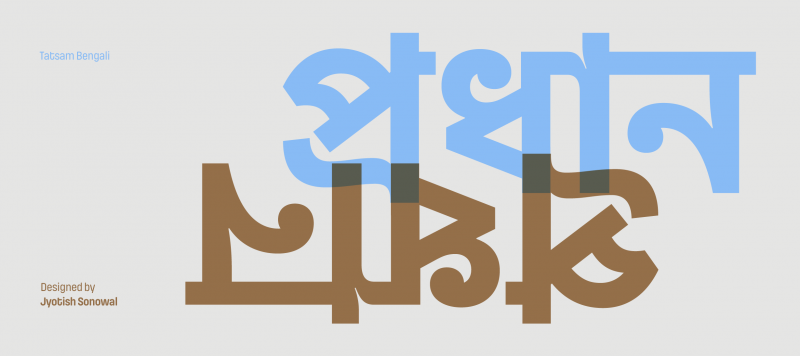
In recent decades, many new typefaces were based on pre-existing letters drafted by engineers. Their consistent stroke thicknesses referenced an industrial past. Tatsam is a Bengali family in this tradition. Uncommon for mono-linear type, Bengali or otherwise, Tatsam’s design includes vestigial traces of its letterforms’ scribal construction. These are most visible at the starting points of many inter-character strokes. While other faces may overlap these onto different parts of the letterforms, hiding them from view, Tatsam exposes its structure. This further reinforces its contemporary feeling.
As with other versatile families from ITF, Tatsam has been tested for use in a wide range of text and display sizes. It includes two styles: a version with flattened terminals, and also a rounded option. Each variant offers five weights – Light through Bold. The range of stroke thicknesses enables the specification of typographic hierarchies with significant visual contrast.
In addition to industrial letters, type with rounded-off stroke terminals is another hallmark of graphic design today. These ‘sans serif’ letters bring hints of mechanical tools to mind – such as those used to engrave letters into plastic or other surfaces with routers – while simultaneously conveying a friendliness and softness in a brand or product.